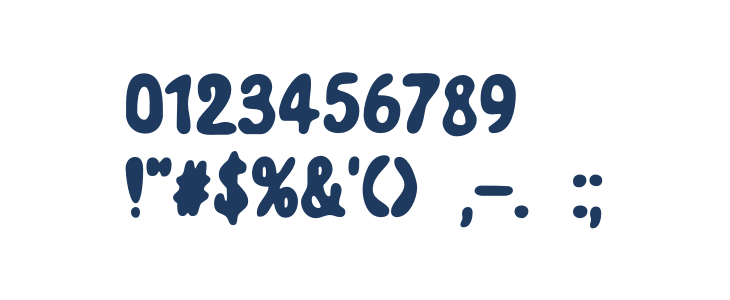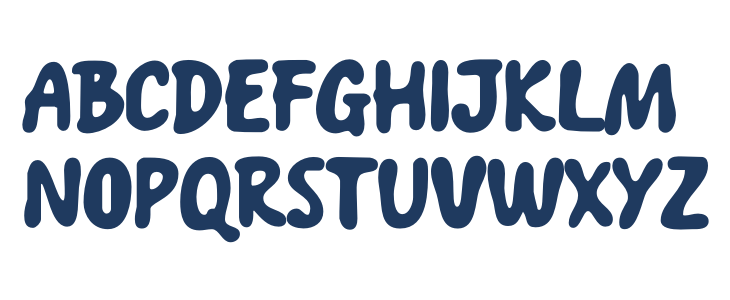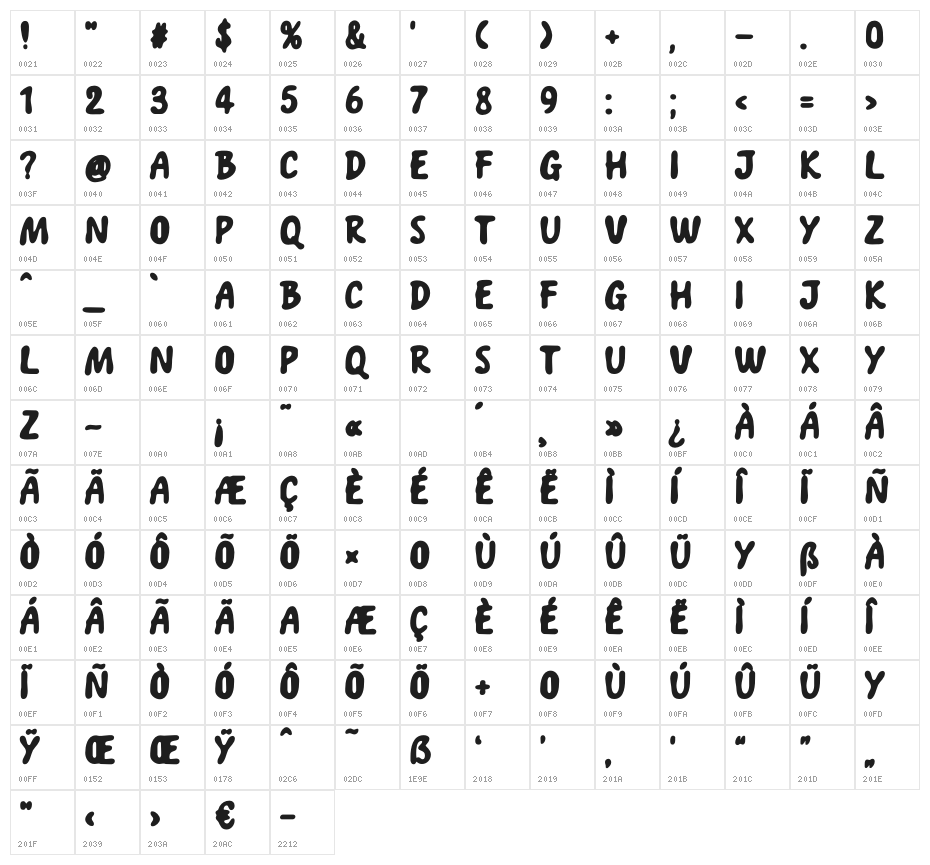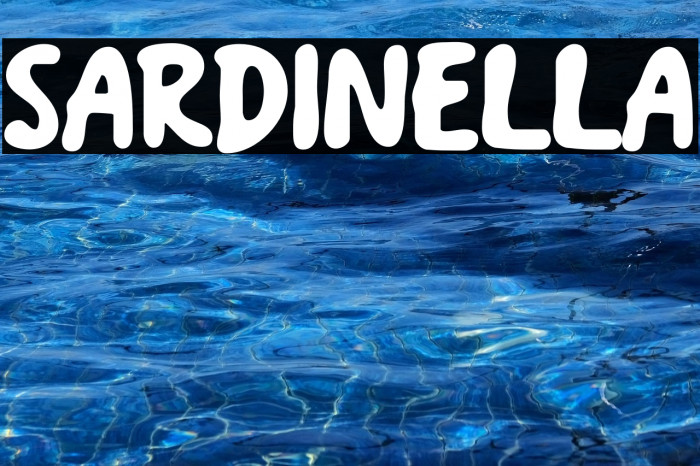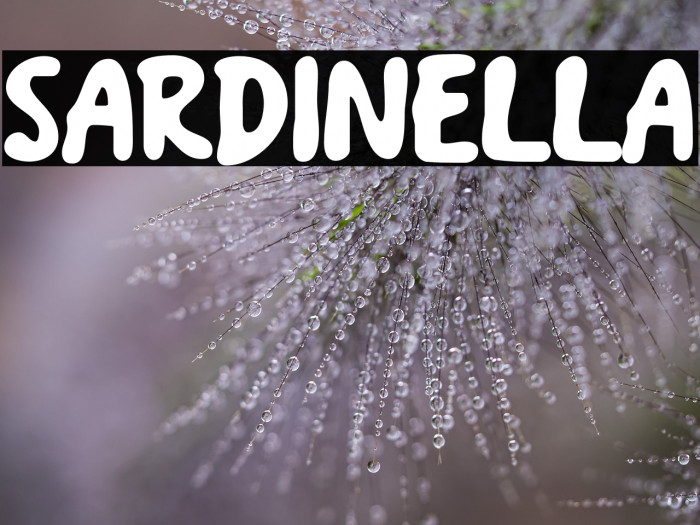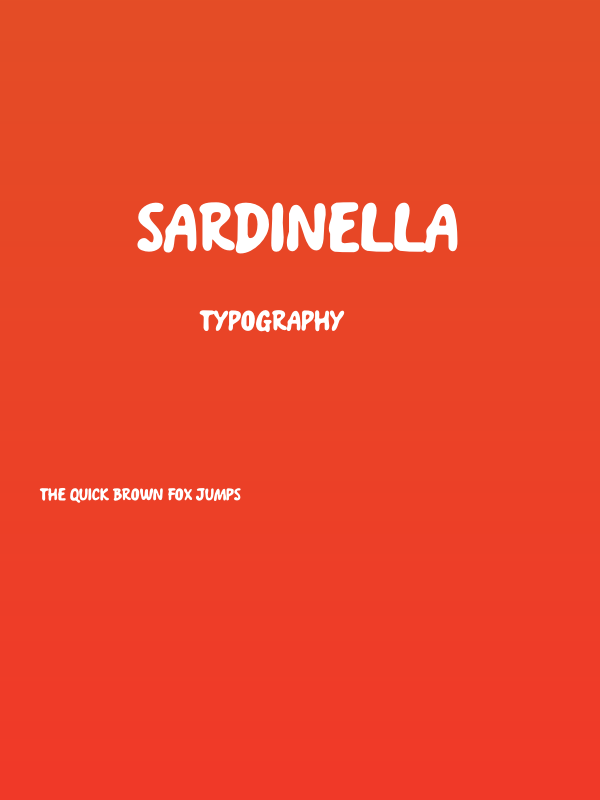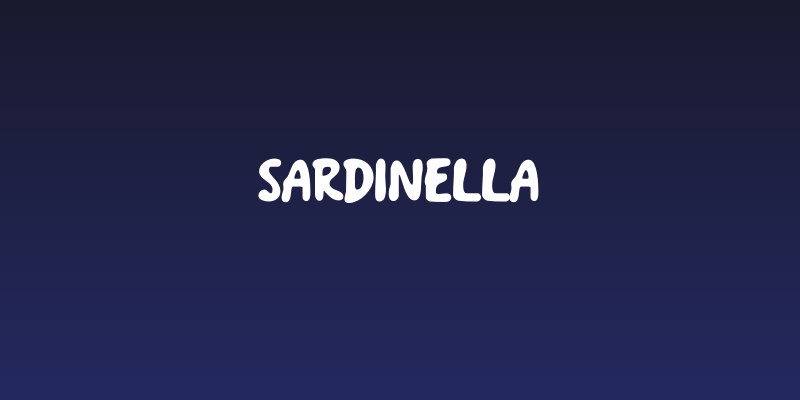
Sardinella Font
Sardinella Description
A bold, rounded, playful sans-serif font with thick strokes and smooth curves, featuring uppercase letters, numbers, and common punctuation marks.
| Overall Style | Playful, Friendly, Informal |
| Use Case | Headlines, Logos, Posters, Children's materials |
| Proposed Projects | Children's books, playful branding, logos, posters, and informal invitations. |